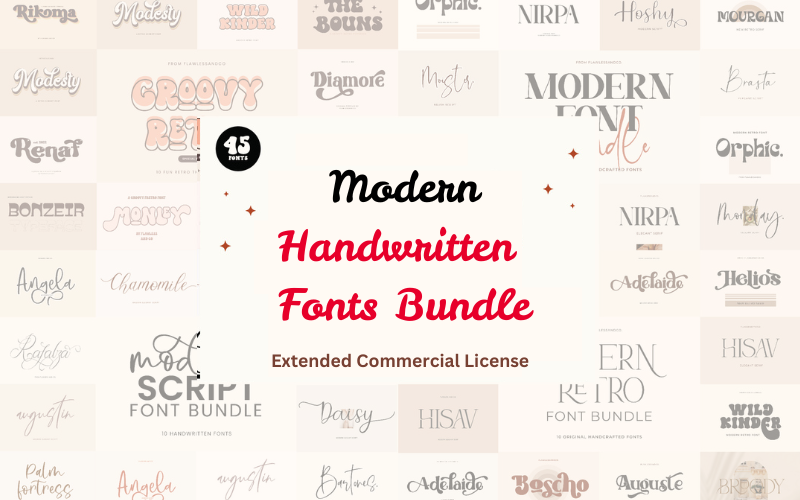
- 45 unique handwritten fonts
- Modern, natural handwritten styles — from casual scripts to refined brush lettering
- Carefully optimized for legibility at display sizes
- Logos, brand identity and packaging
- Website headings and web typography
- Social media graphics, banners and ads
- Invitations, greeting cards and stationery
- Posters, editorial and merchandise